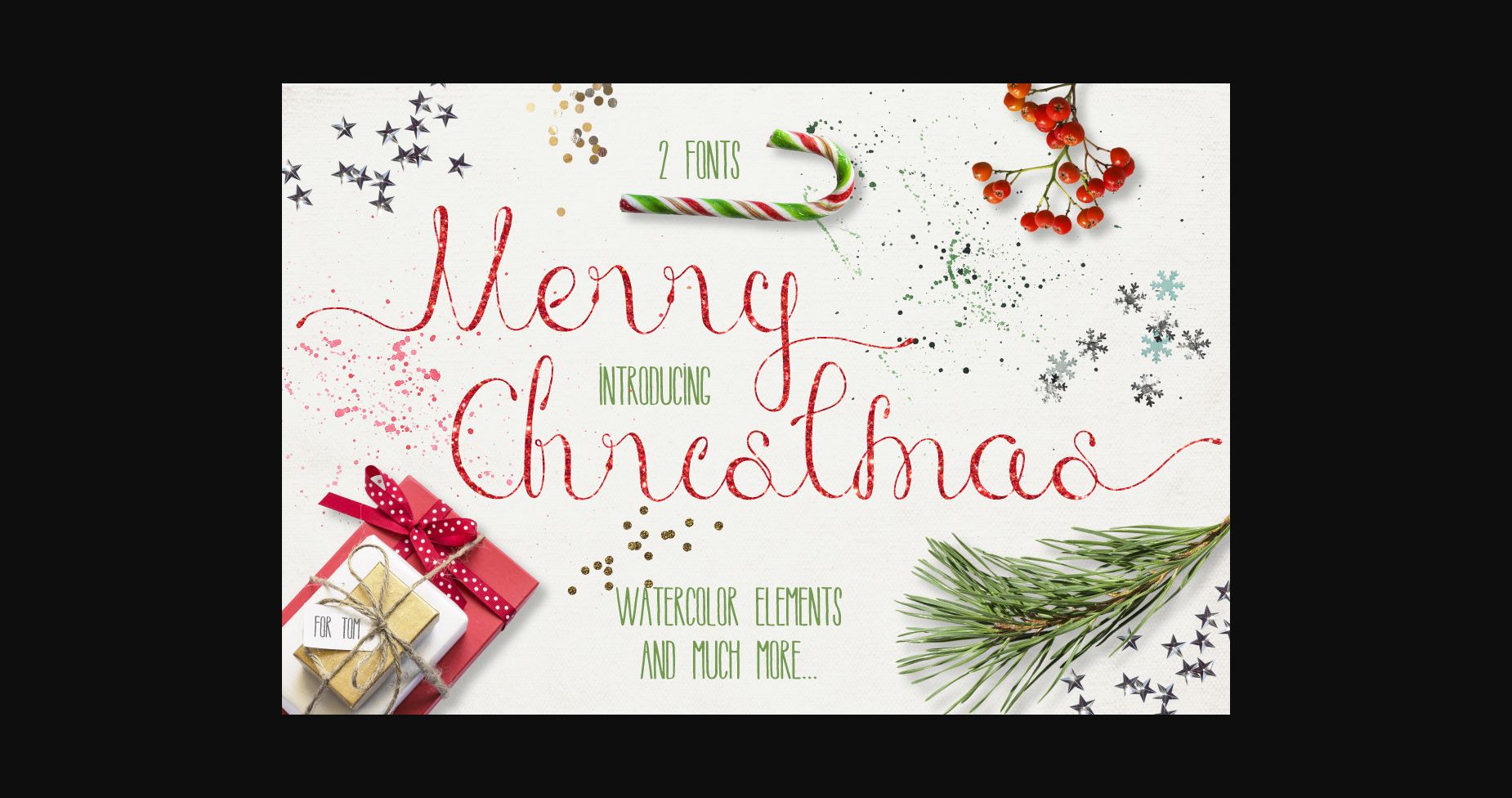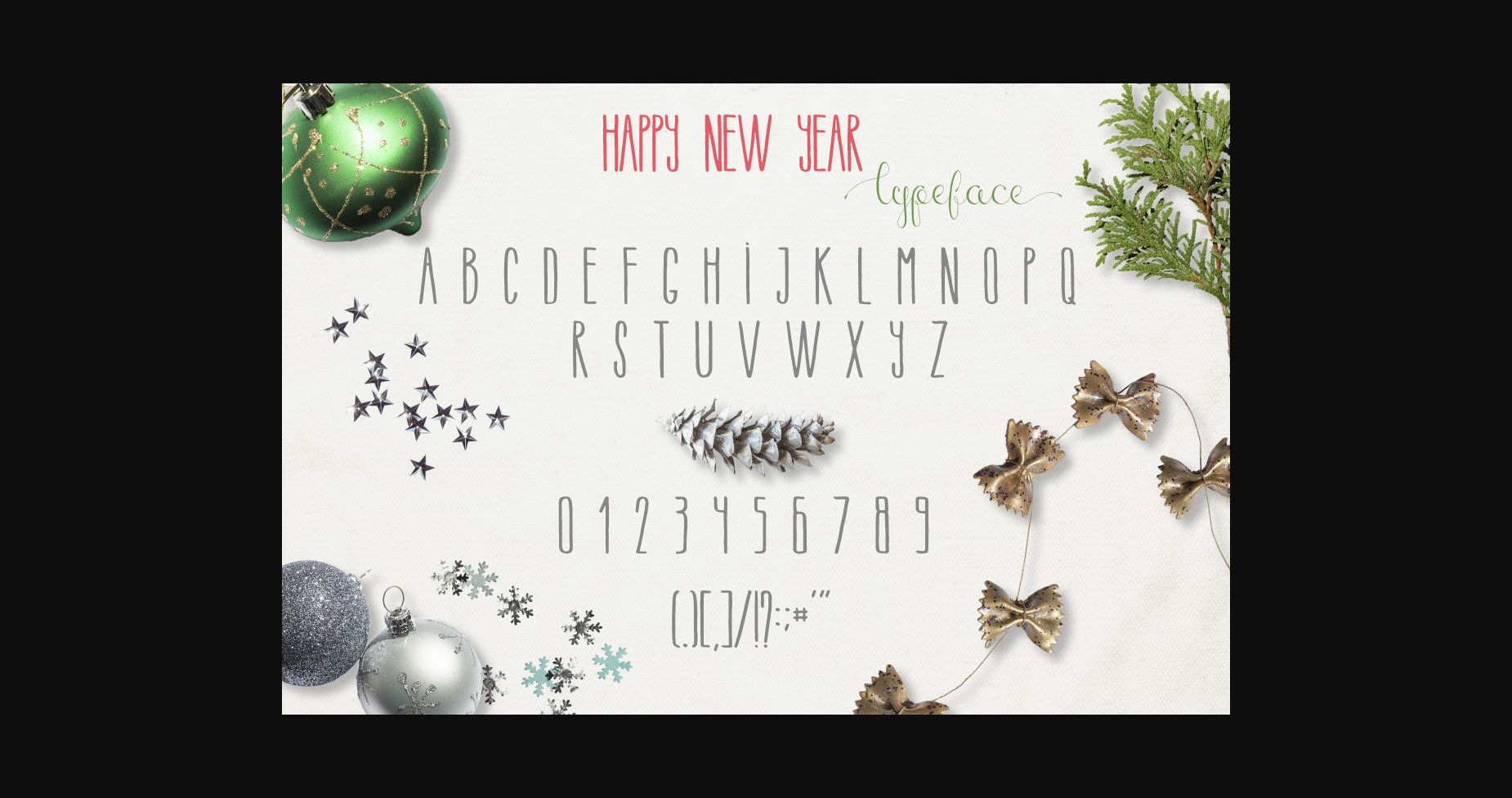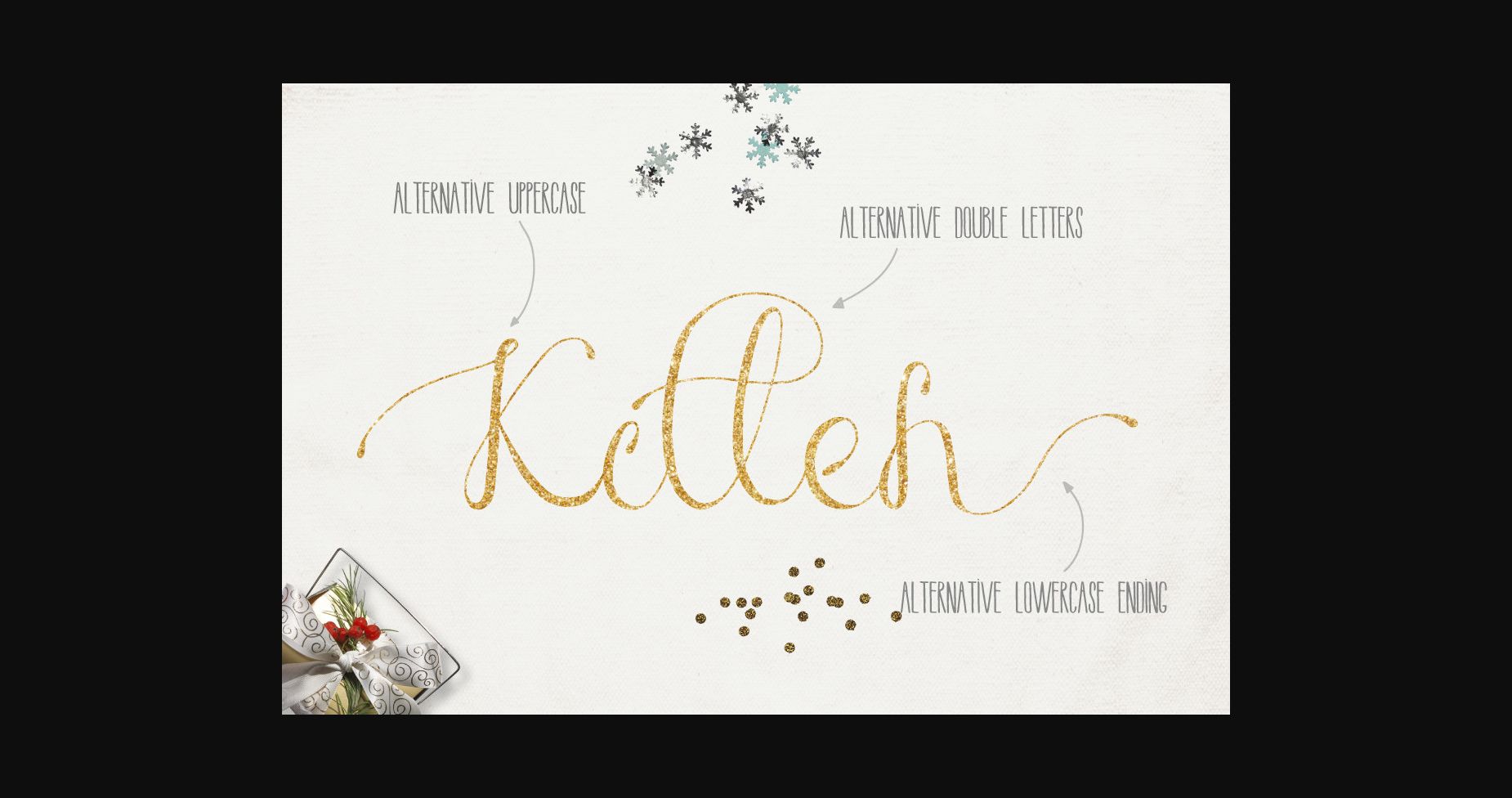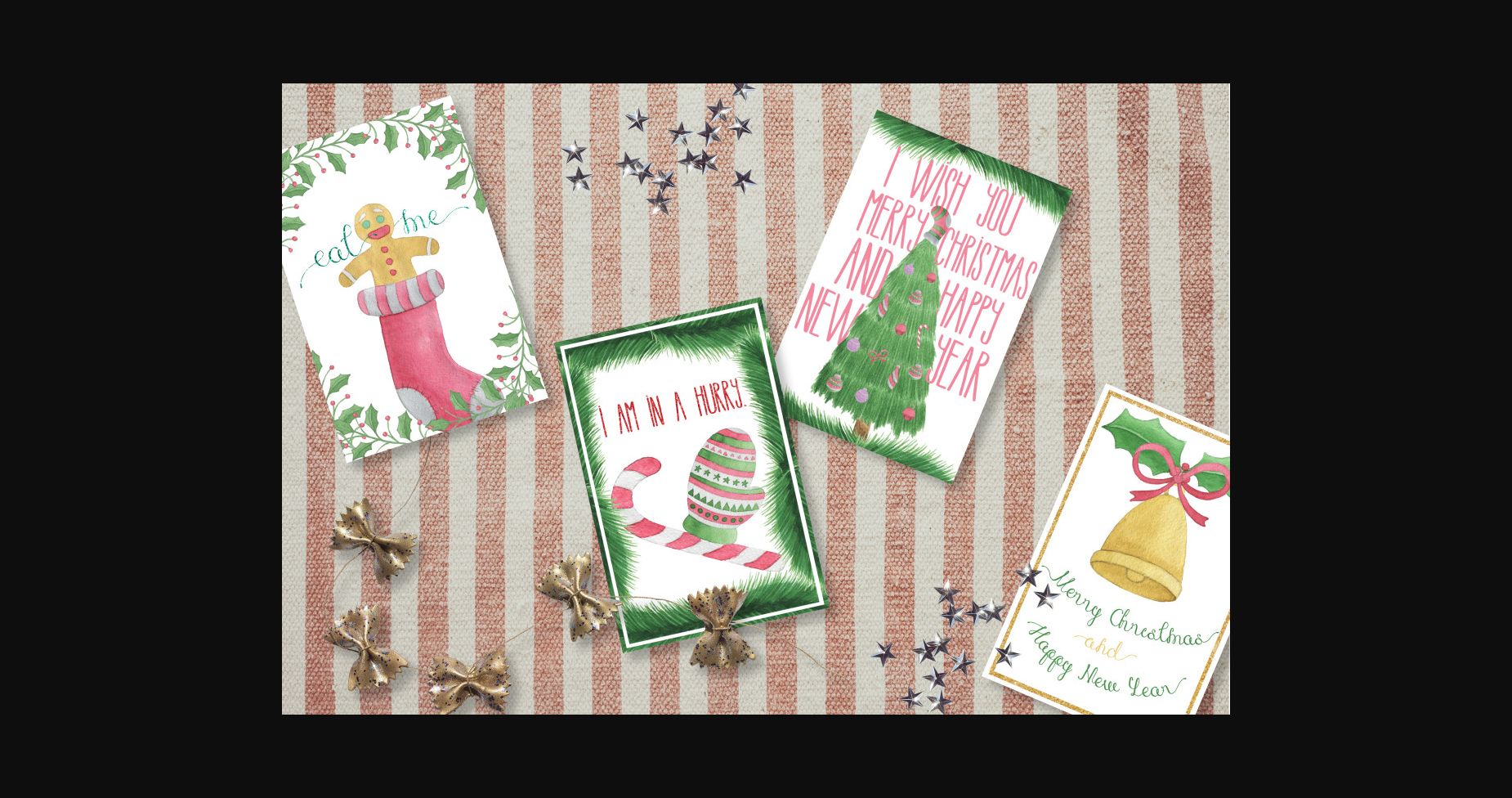
Merry Christmas Font
About Merry Christmas Font
You need to make t-shirt design or invitation? Maybe you want to make poster, send a postcard to friend or a pillow? Or if you have a small shop or a cafe? Use this font for your design.
Merry Christmas font: It’s hand lettered script font. This font includes 165 glyphs. Besides the basic glyph it also includes alternative uppercase, alternative lowercase initial and lowercase ending.
Happy New Year font: It’s hand lettered sans serif font. It goes well with the script font.